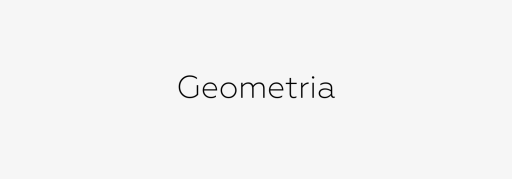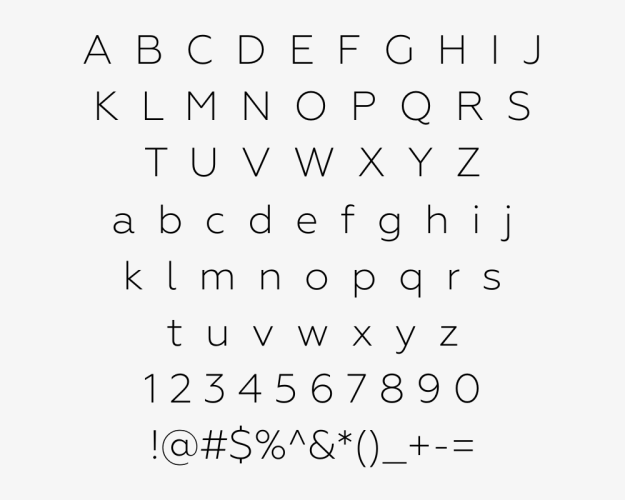
Geometria Font
Geometria is a clean geometric sans-serif font with a modern style. Moreover, it uses simple shapes like circles and lines. Gayaneh Bagdasaryan and Vyacheslav Kirilenko…
Geometria is a clean geometric sans-serif font with a modern style. Moreover, it uses simple shapes like circles and lines. Gayaneh Bagdasaryan and Vyacheslav Kirilenko designed this font. Additionally, Brownfox published it in 2013.
This font family includes 24 different styles to choose from. Furthermore, you get eight weights from thin to bold. Each weight comes with matching italics and narrow versions. Therefore, designers have many options for their projects.
The typeface works great for websites and branding projects. In addition, it looks professional on packaging and corporate materials. The font supports over 72 languages worldwide. Consequently, it won the Granshan Award in 2013.
You can use Geometria for both headlines and body text. However, it stays easy to read at any size. The clean design makes your message clear and trustworthy. As a result, many businesses choose it for their identity.
Geometria Font stays legible at small sizes, which makes it a strong choice for navigation, buttons and dashboards in web design and app interfaces.
Clean sans serifs like Geometria Font are the default language of SaaS, fintech and product branding.
What is Geometria Font good for?